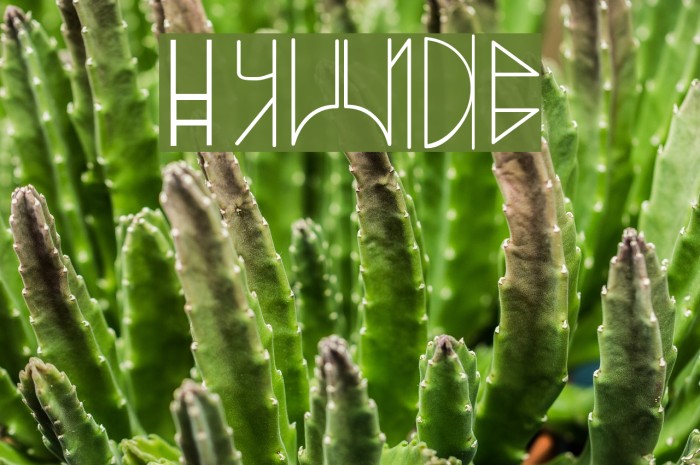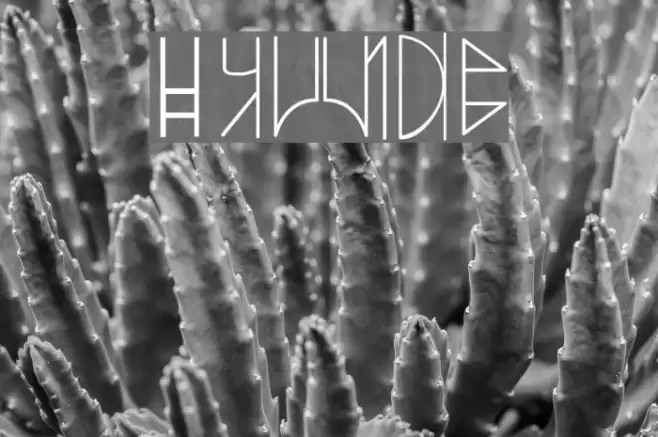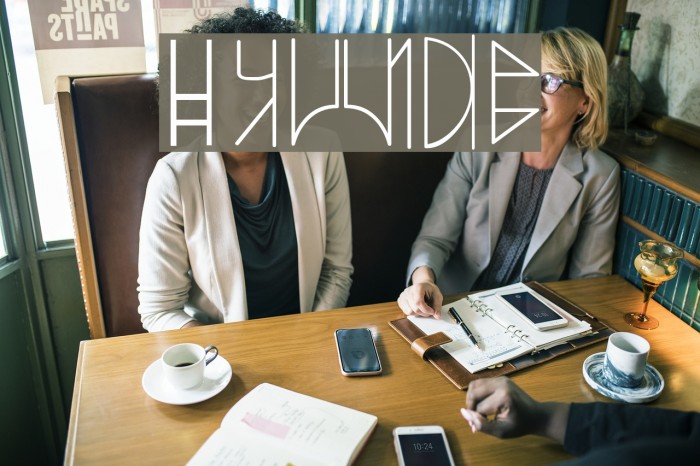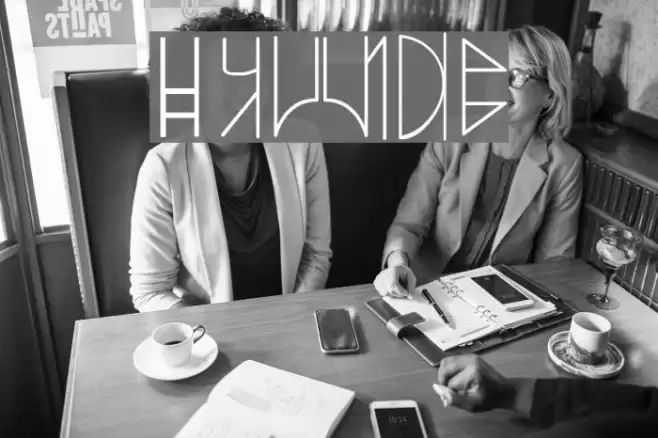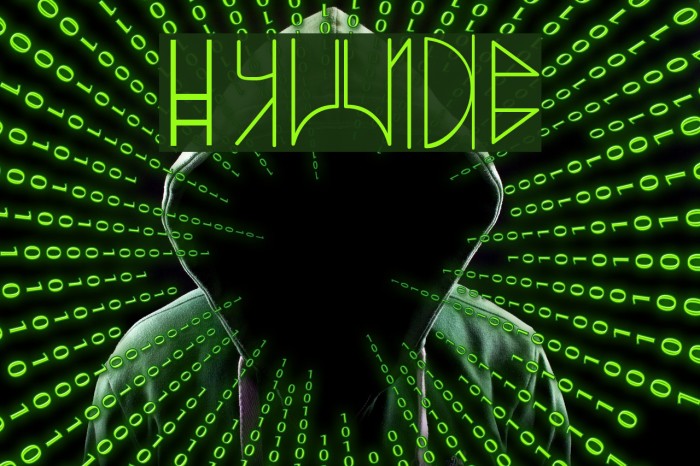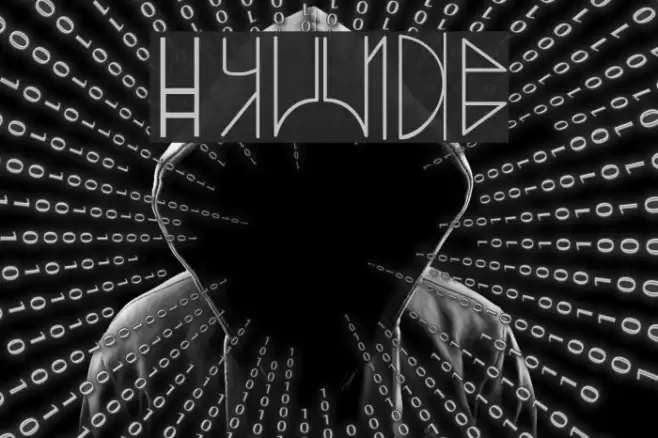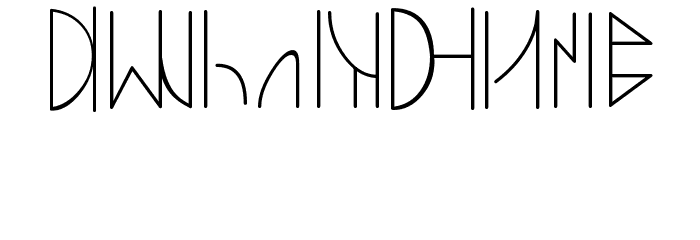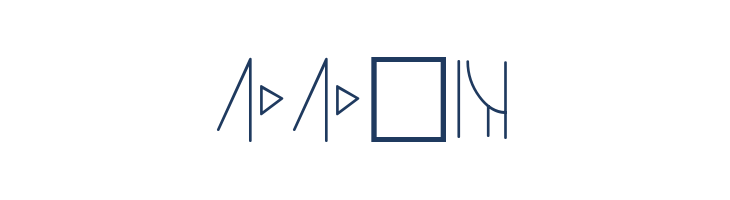
SWyavin4 Font
SWyavin4 Description
This font features a unique and abstract design, characterized by geometric shapes and angular lines. The characters are composed of straight lines and sharp angles, giving it a futuristic and cryptic appearance. The uppercase letters are particularly striking, with each character resembling a stylized symbol or rune. The lowercase letters maintain this geometric style, though they are slightly more rounded. The numbers and special characters follow the same design principles, ensuring consistency across the entire typeface. This font is highly decorative and not intended for body text, but rather for artistic or thematic projects where a distinctive and avant-garde look is desired.
| Overall Style | Futuristic, Abstract |
| Use Case | Logos, Titles, Posters |
| Proposed Projects | Ideal for sci-fi themed designs, video game graphics, movie posters, or any project requiring a unique and modern aesthetic. |